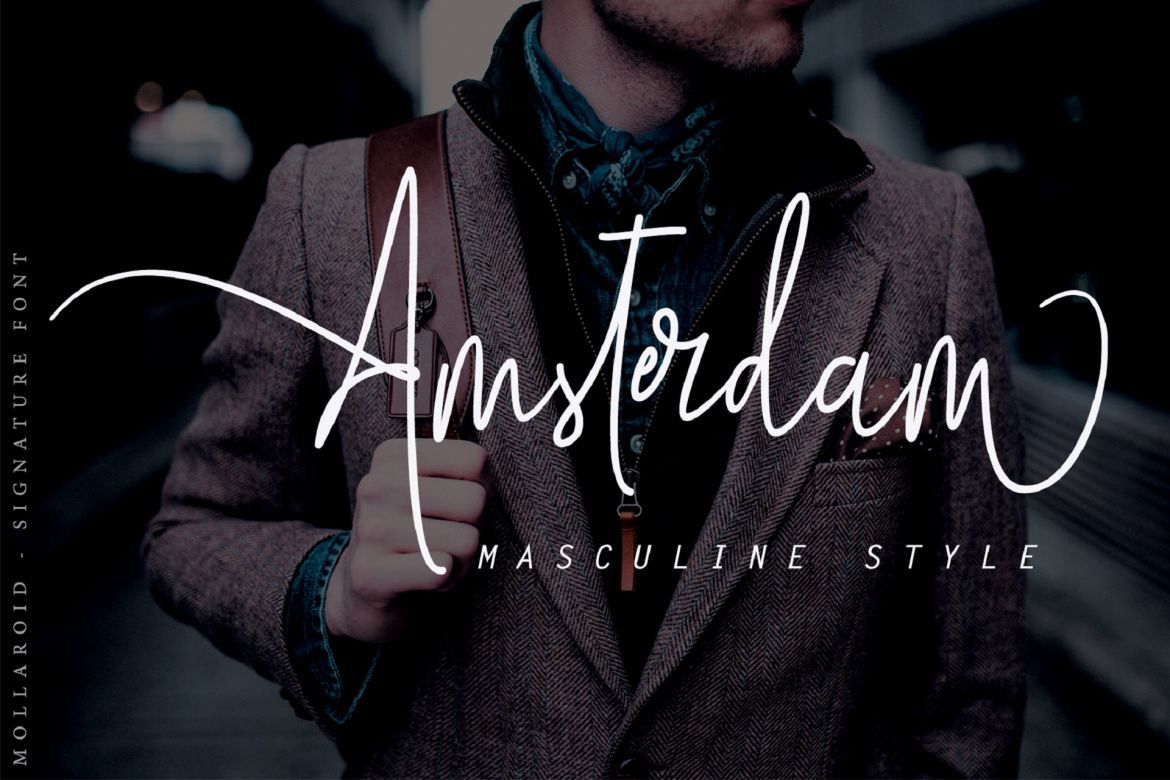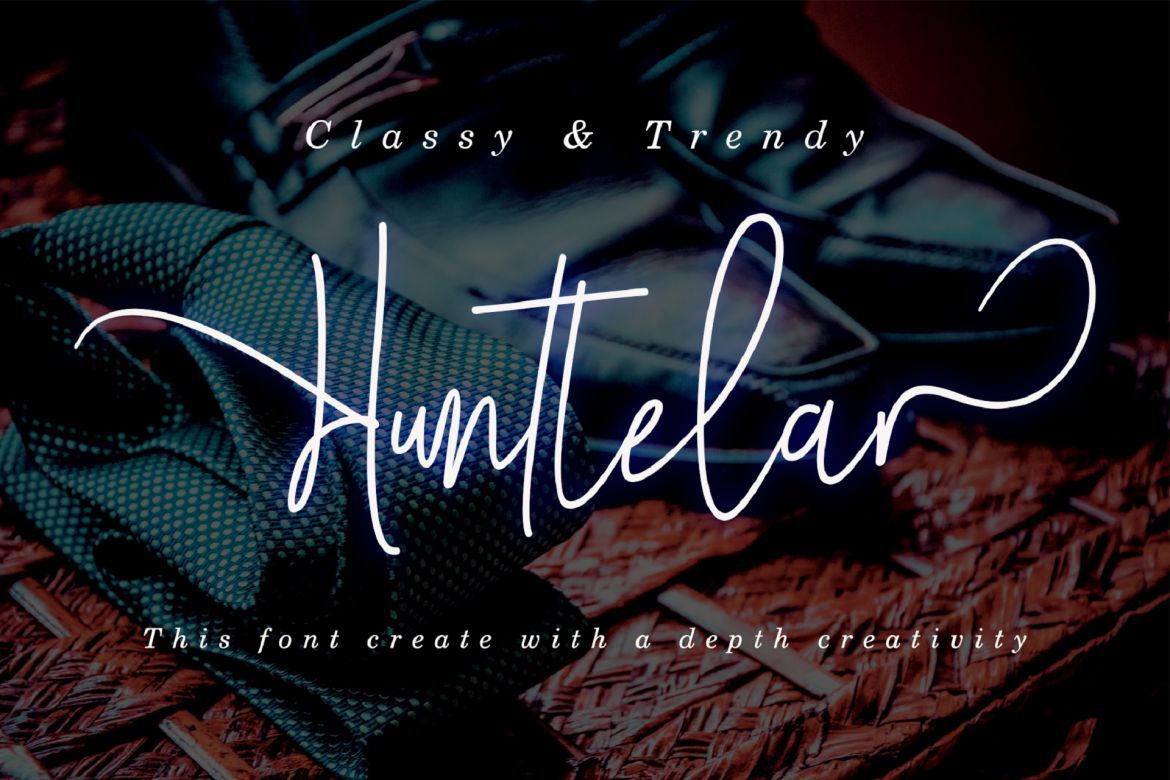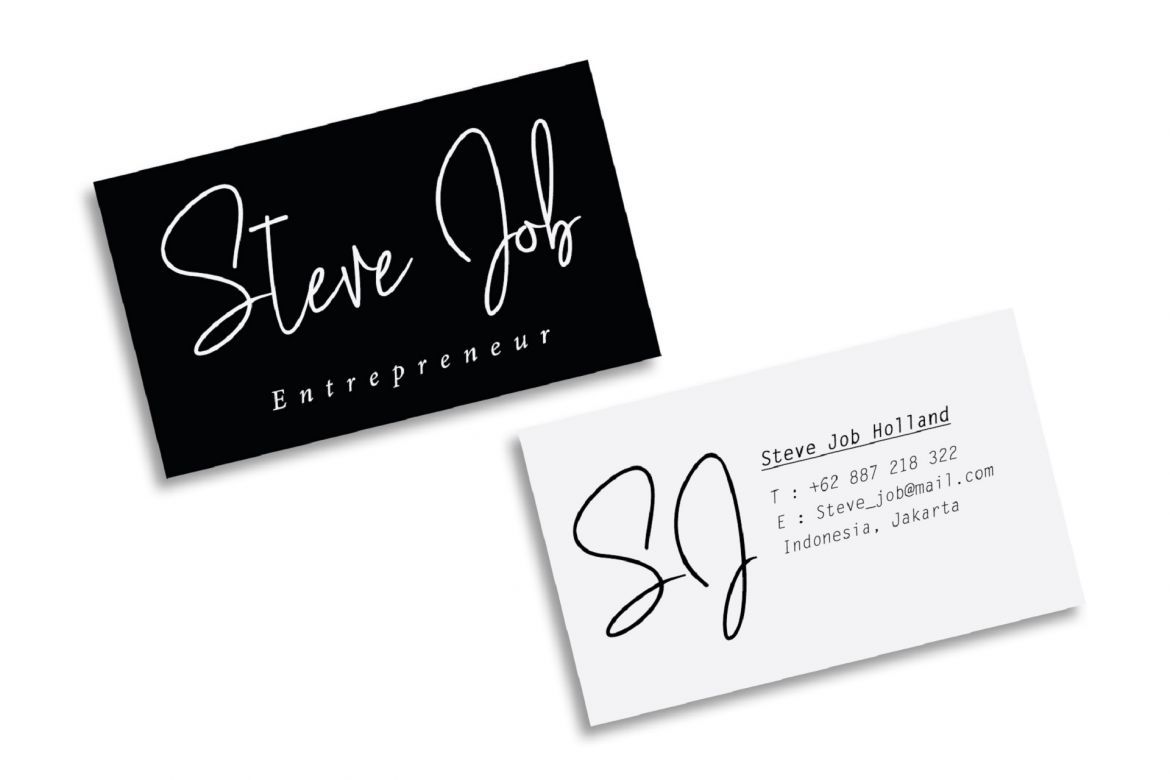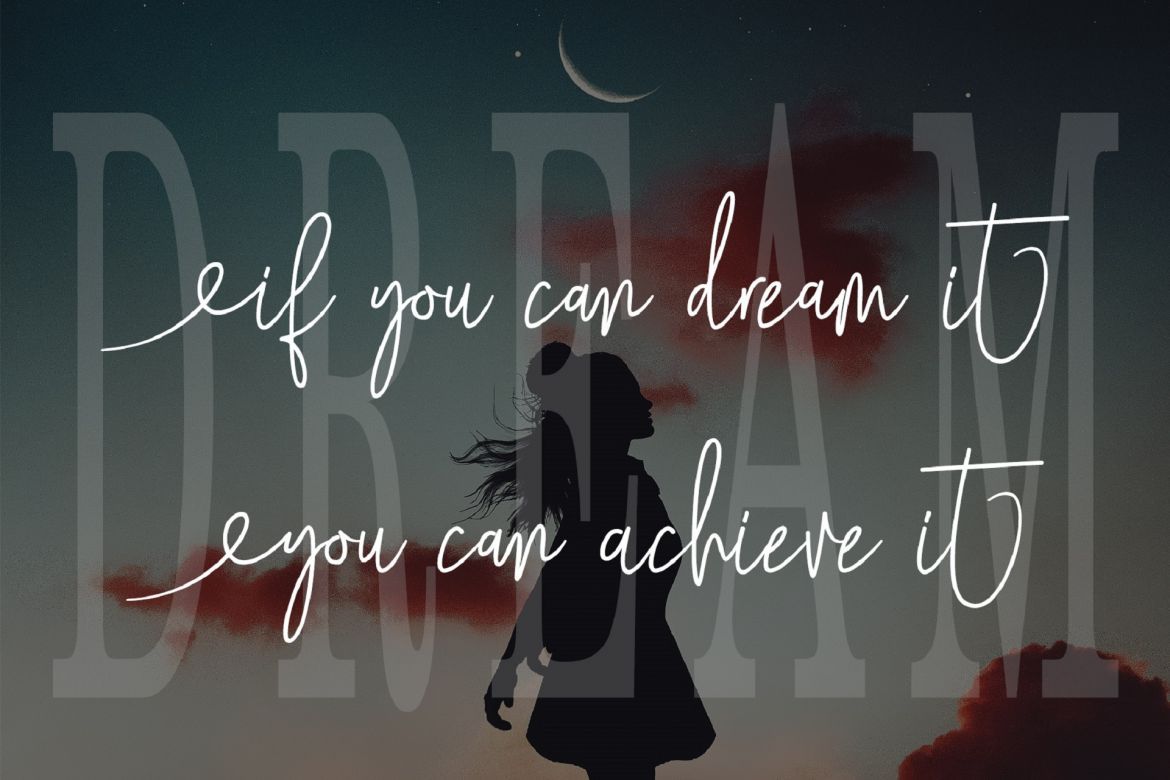
Mollaroid - Signature Font
Mollaroid - Signature Font - A stylish and quirky new signature font script. Mollaroid font was created to look as close to a natural handwritten script as possible by including over a lot ligatures, titling, and swash.
This font is for those who want to show something smooth and modern. You may use this font if you want to attract modern buyers. The font design seems to show that you have a passion in the business and give your love to the products and services you are offered to customers.
Because it is an eye-catching signature font, you can use it for a variety of purposes including design, branding, signature, logo, poster, and many more.
• each font has: stylish handwritten style, beautiful swash (ending tail), beautiful titling (beginning tail), special ligatures, multilingual support